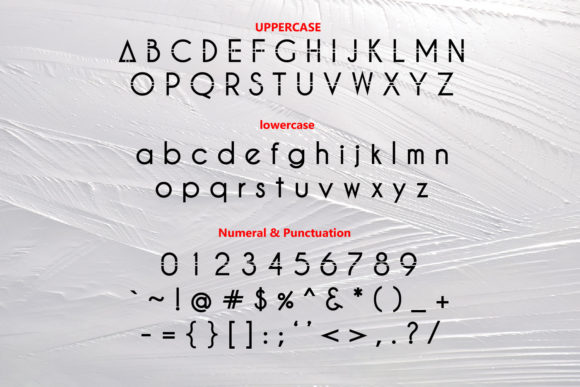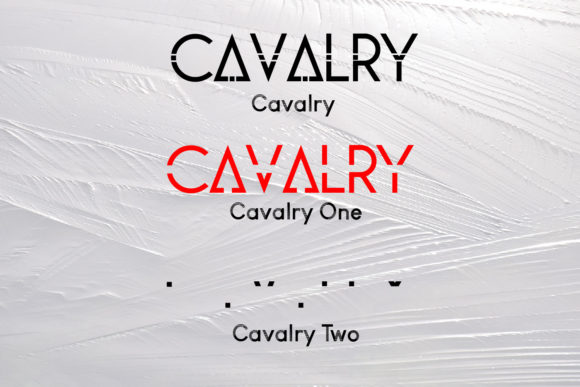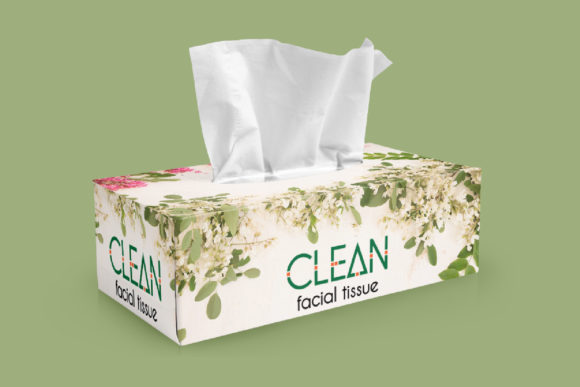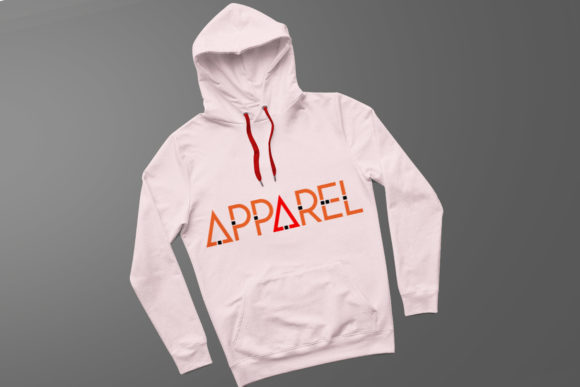
Introduction to Cavalry Font
Cavalry is a stunningly modern and charming sans serif font.
It was created with a layered concept, simple, unique, elegant This font family is enough to obtain maximum results.
Key Features of Cavalry Font